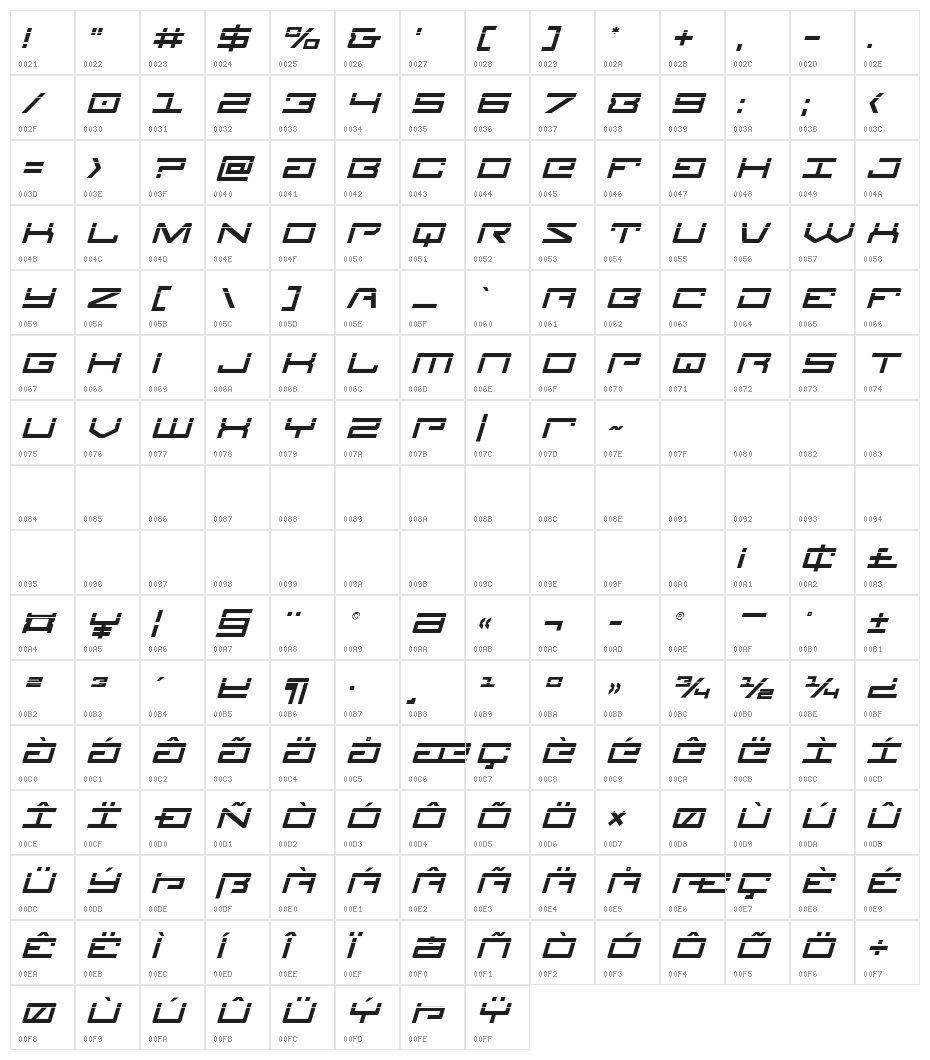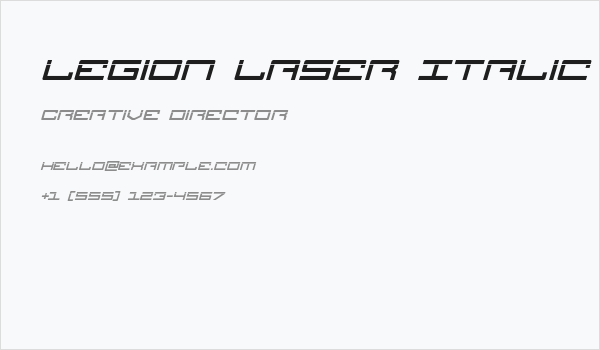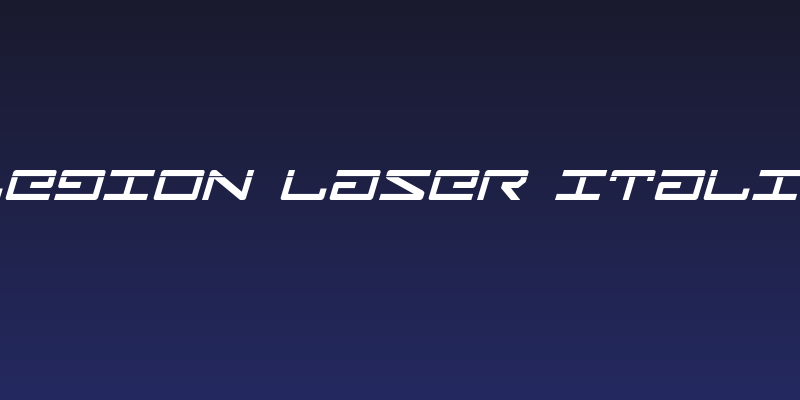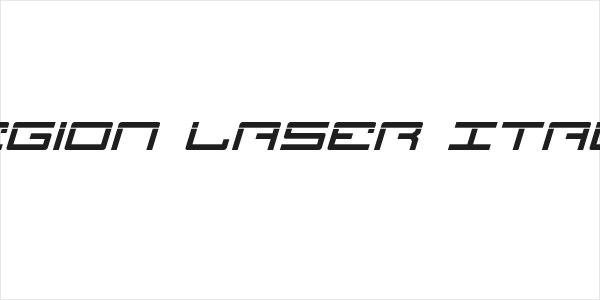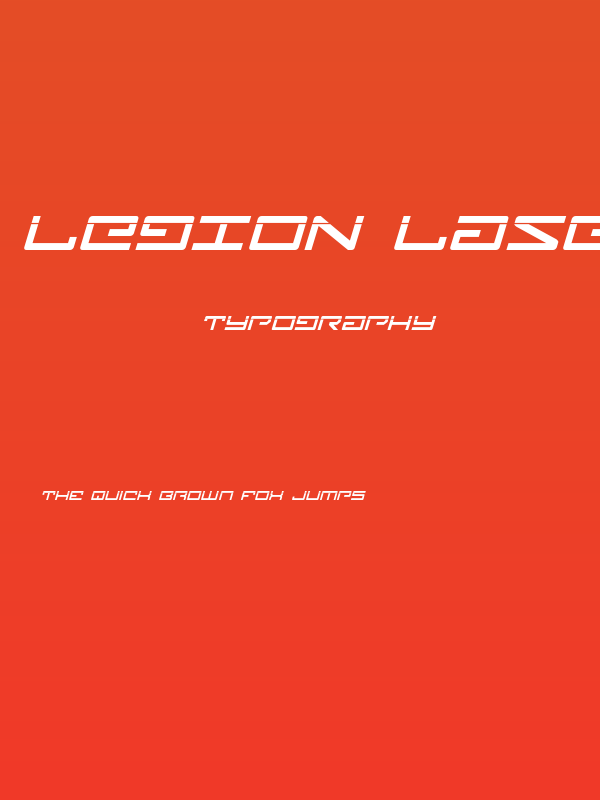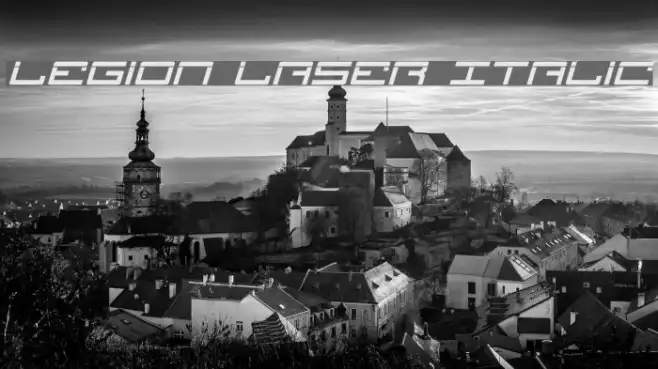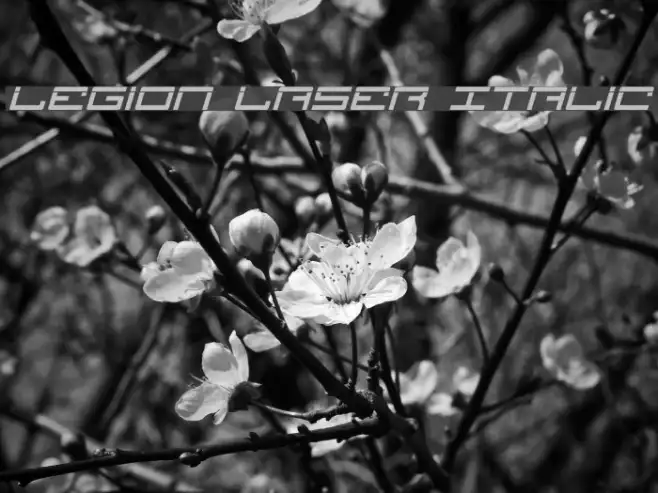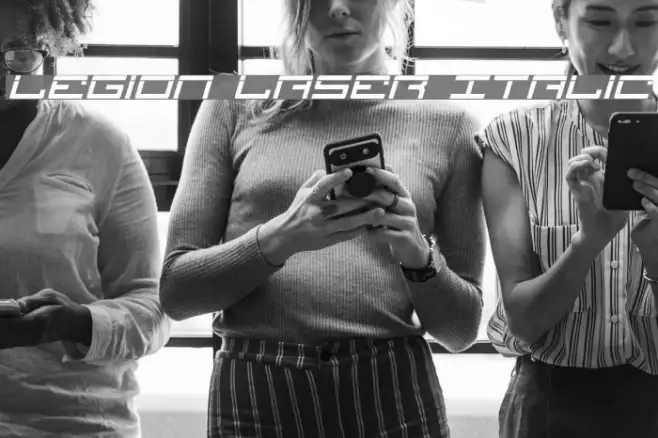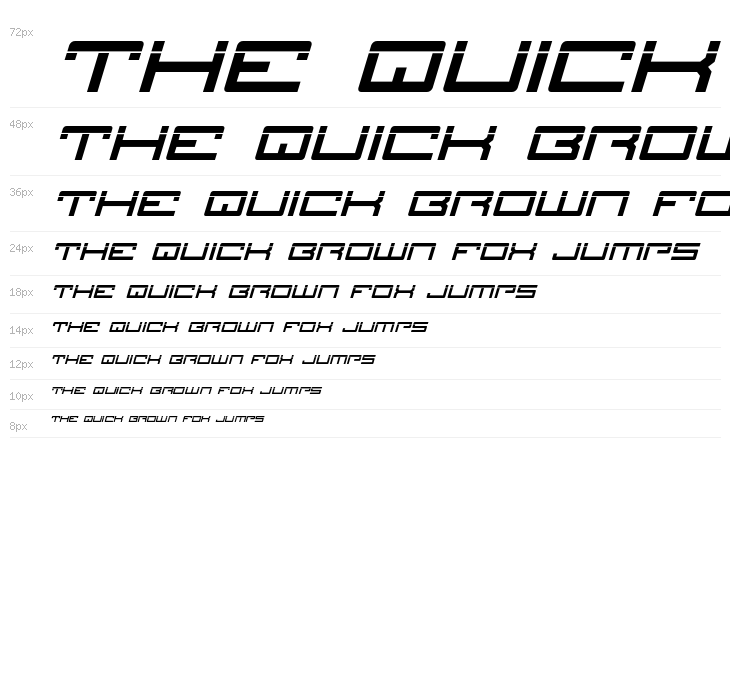
Legion Laser Italic Font
Legion Laser Italic Description
This font features a futuristic and angular design, characterized by sharp edges and a sleek, italicized form. The letters are constructed with a geometric precision that gives them a high-tech, digital appearance. The uppercase and lowercase characters maintain a consistent style, with a slight slant that enhances the dynamic feel. Numbers and special characters are designed to match the overall aesthetic, making them suitable for a cohesive visual presentation. The font's unique style makes it stand out, ideal for projects that require a modern and edgy look.
| Proposed Projects | Ideal for sci-fi themed designs, technology branding, video game interfaces, and modern advertising. |